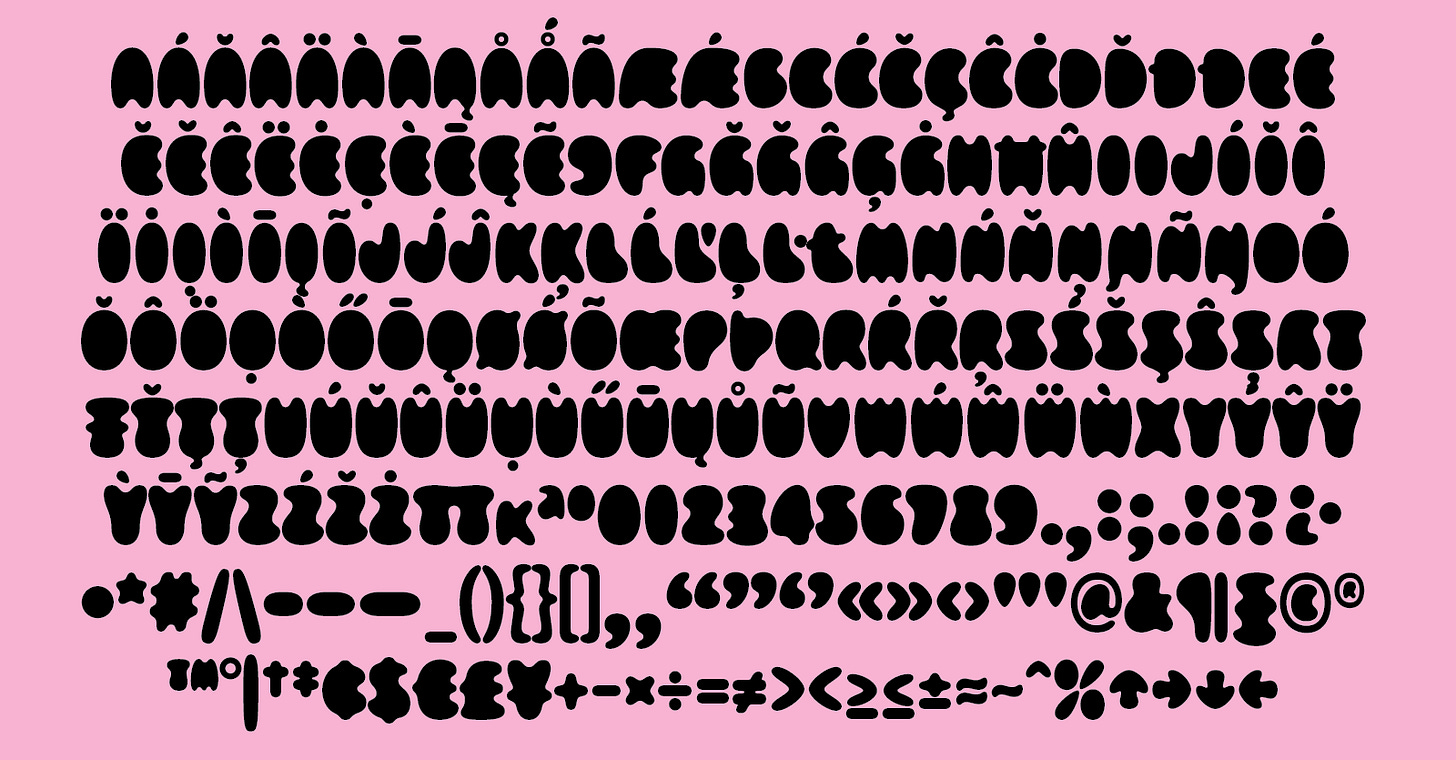
It’s the last day of January and as promised, Yolker is here! I am quite proud of my little eggy guy! The process was quite smooth outside of a small website hiccup this morning. But thanks to Tom at Fontdue, we’re back in business!
Yolker’s development began back in 2021 as part of the 52 Fonts Project! If you’ve been here since then, you have my love forever!! The idea came to me in a lightbulb moment right before drifting off to sleep. It seems to be when my best ideas pop into my head. I am also a better writer when I write before bed instead of during the work day. I don’t know what that says about me but here we are!
The idea behind Yolker was to emulate a freshly cracked egg, plopped into a frying pan! To turn that concept into letters, I took a bit of a cartoonish approach to the forms. Lots of big smooth curves, with no counters or straight lines (so long as I can help it!). In the Yolks style, the yolk can act as a counter of sorts although there’s one with every letter. Some people have complained that B doesn’t have two yolks but I’m sorry to report that it looks weird!! Plus it’s not really a counter, so giving B two yolks would confuse the whole concept. Call me crazy, but it’s extremely important to me to adhere whole-heartedly to a concept. Otherwise what is the point?!
Yolker has transformed since the original release. It’s become narrower, more symmetrical, and more cohesive overall. It’s been a balance between “what would an egg do?” versus “what makes sense for a functioning typeface?” (Should we make W.W.A.E.D. rubber bracelets??) And of course, legibility in such a weirdly blobby typeface is a big concern! I am quite happy with where it’s landed and I am excited to (hopefully) see others use it!
Yolker has four styles: Yolks, Yolks Outline, Yolkless, and Yolkless Outline. Designed with novelty AND usability in mind. Consider it your go-to font for novelty tees, diner menus, and truly anything breakfast themed!
Speaking of using Yolker, I made a little printed specimen for it! It comes in the form of a fake diner menu. The Grade A Cafe, if you will! I used Yolker for the whole thing to show how strangely versatile it can be. It looks great sized extra large at the top of the menu and even works for the disclaimer text at the bottom. If you’d like a copy, they’re for sale for $10 (includes shipping [even for international folks!!])! It even comes with a fun TYPOGRAPHIC EGGCELLENCE sticker. Click the button below to snag a copy!